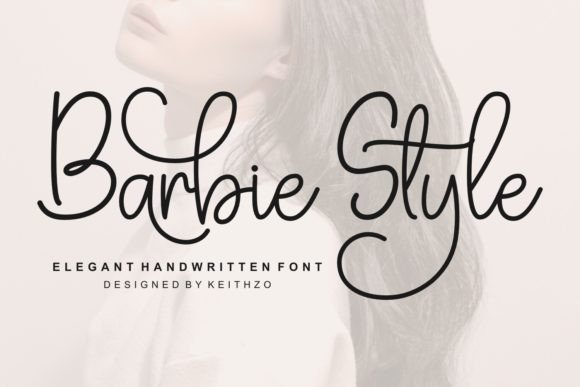
Discover the Elegance of Barbie Style Font: A Delicate and Versatile Handwritten Font
Are you a designer or crafter looking for a font that exudes elegance and sophistication? Look no further than the Barbie Style Font. This delicate and elegant handwritten font is sure to capture your heart with its distinct and well-balanced letters. In this article, we’ll dive into the world of Barbie Style Font and explore its features, uses, and benefits.
What is Barbie Style Font?
Barbie Style Font is a beautiful, handwritten font that is characterized by its delicate and elegant strokes. Its distinct letters are carefully crafted to create a well-balanced and harmonious look that is perfect for a variety of design projects. Whether you’re creating a logo, invitation, or social media graphic, this font is sure to add a touch of sophistication and glamour.
Key Features of Barbie Style Font
- Delicate and Elegant: Barbie Style Font features delicate and elegant strokes that give it a sophisticated and refined look.
- Distinct and Well-Balanced Letters: Each letter is carefully crafted to create a well-balanced and harmonious look that is easy on the eyes.
- Versatile: This font is incredibly versatile and can be used for a wide range of design projects, from logos and invitations to social media graphics and more.
- Handwritten: Barbie Style Font is a handwritten font that adds a personal and human touch to your designs.
Uses of Barbie Style Font
Barbie Style Font is a versatile font that can be used for a variety of design projects. Here are some ideas to get you started:
- Logos: Create a sophisticated and elegant logo for your business or brand using Barbie Style Font.
- Invitations: Design beautiful and elegant invitations for weddings, parties, and other special events.
- Social Media Graphics: Add a touch of glamour and sophistication to your social media graphics, such as Facebook posts, Instagram stories, and Twitter headers.
- Stationery: Create beautiful and elegant stationery, such as letterheads, notecards, and journals.
- Crafting: Use Barbie Style Font to add a personal touch to your crafting projects, such as scrapbooking, card making, and DIY home decor.
Benefits of Using Barbie Style Font
There are many benefits to using Barbie Style Font in your design projects. Here are a few:
- Elegance and Sophistication: This font adds a touch of elegance and sophistication to your designs, making them perfect for high-end brands and luxury products.
- Versatility: Barbie Style Font can be used for a wide range of design projects, making it a great addition to your font library.
- Easy to Read: The well-balanced and harmonious letters make this font easy to read, even at small sizes.
- Unique: Barbie Style Font is a unique and distinctive font that will help your designs stand out from the crowd.
Tips for Using Barbie Style Font
Here are a few tips for using Barbie Style Font in your design projects:
- Pair with Other Fonts: Experiment with pairing Barbie Style Font with other fonts to create a unique and interesting look.
- Use for Headings: Use Barbie Style Font for headings and titles to add a touch of elegance and sophistication.
- Experiment with Colors: Try out different colors and color combinations to find the perfect look for your design.
- Pay Attention to Spacing: Make sure to pay attention to spacing and kerning to ensure that your text looks balanced and harmonious.
In conclusion, Barbie Style Font is a beautiful and elegant handwritten font that is perfect for designers and crafters looking to add a touch of sophistication and glamour to their designs. With its delicate and elegant strokes, distinct and well-balanced letters, and versatility, this font is sure to become a favorite in your font library.